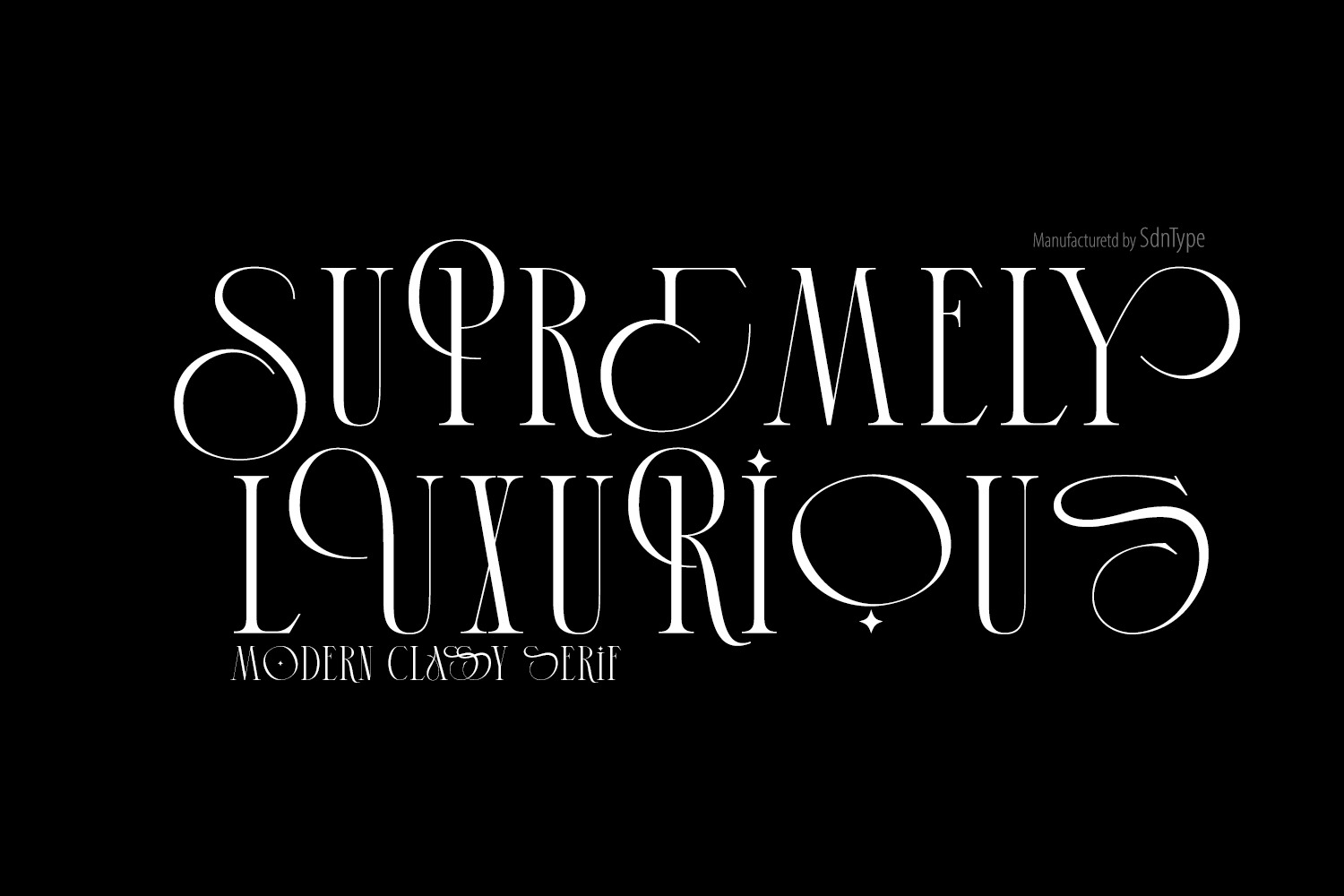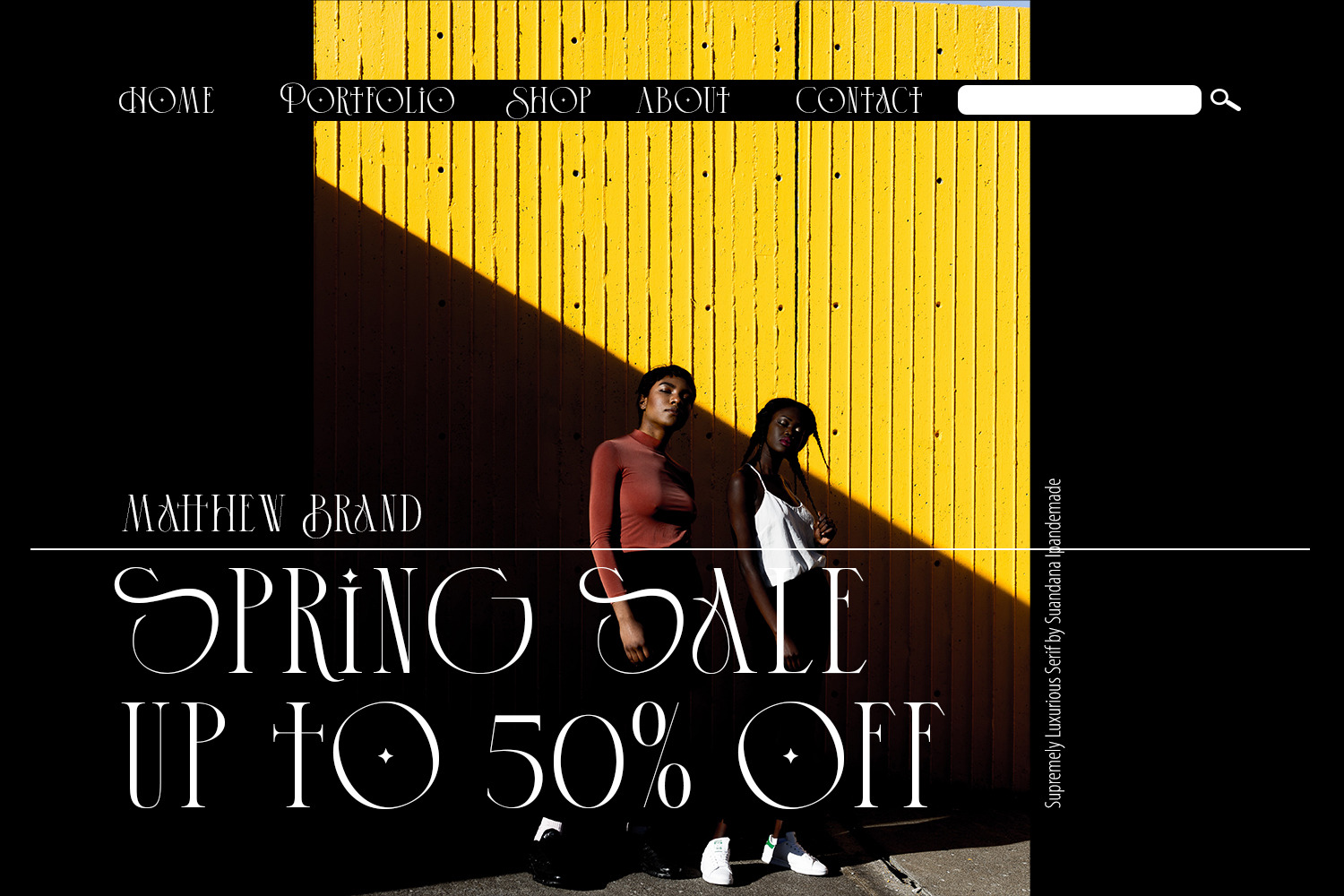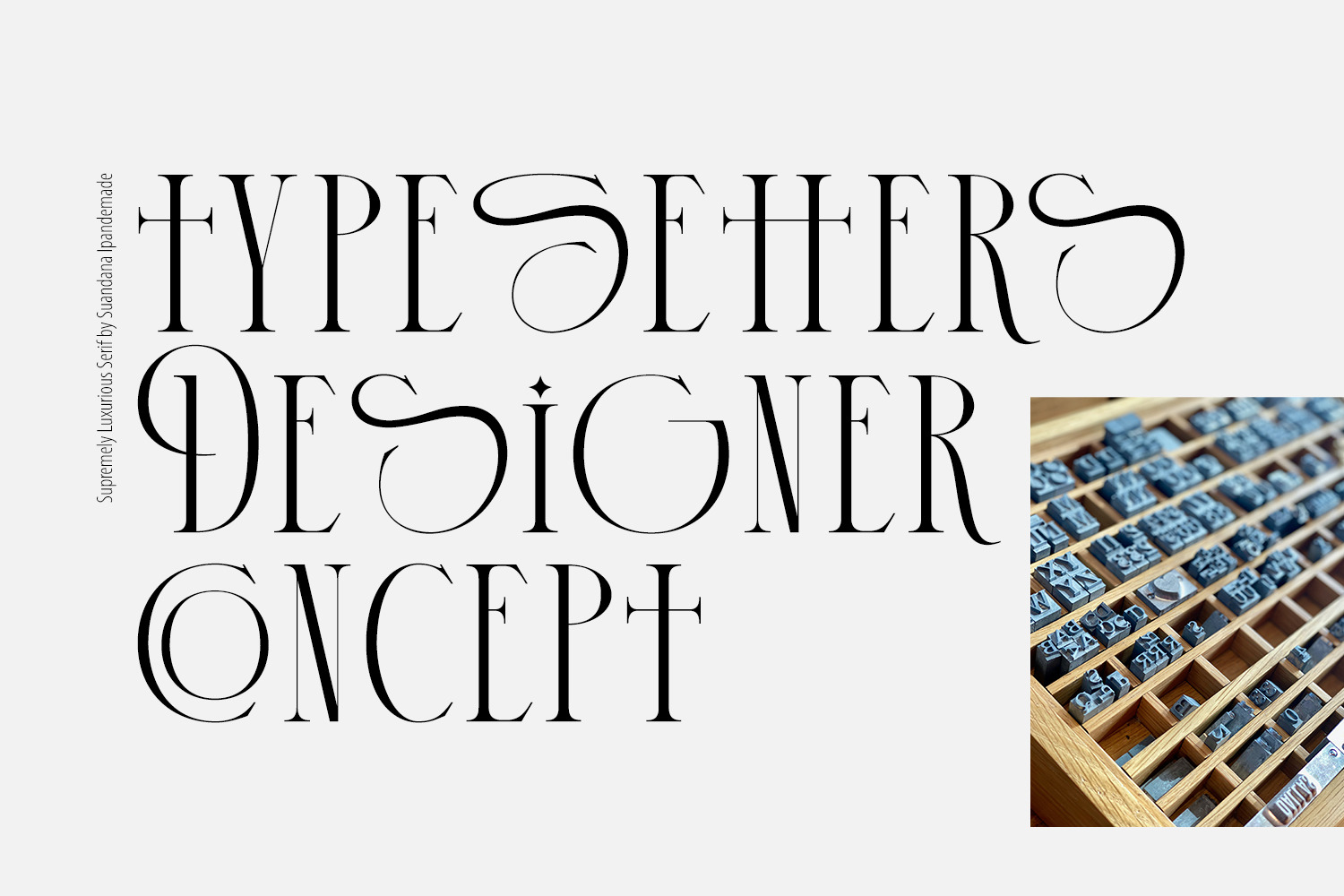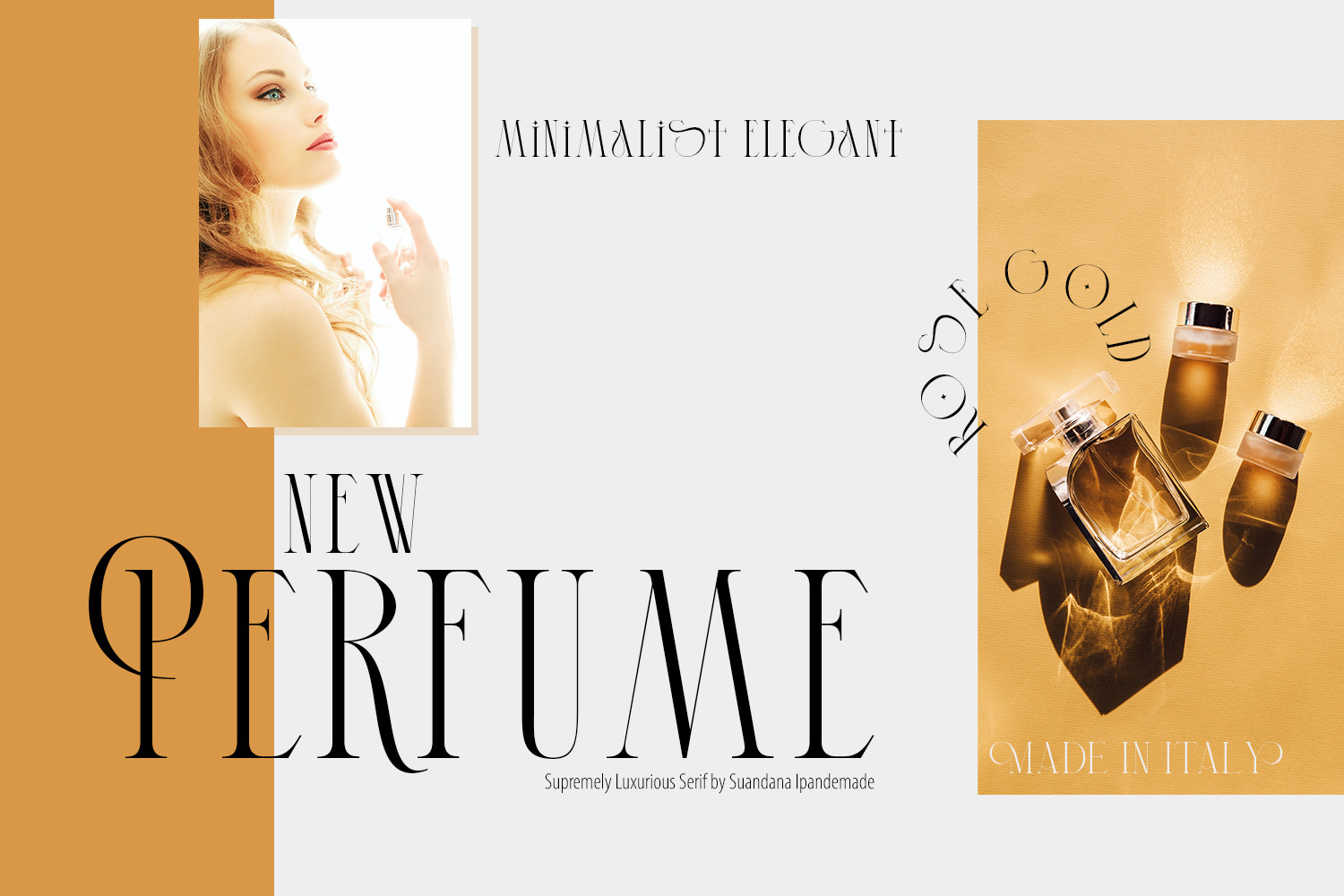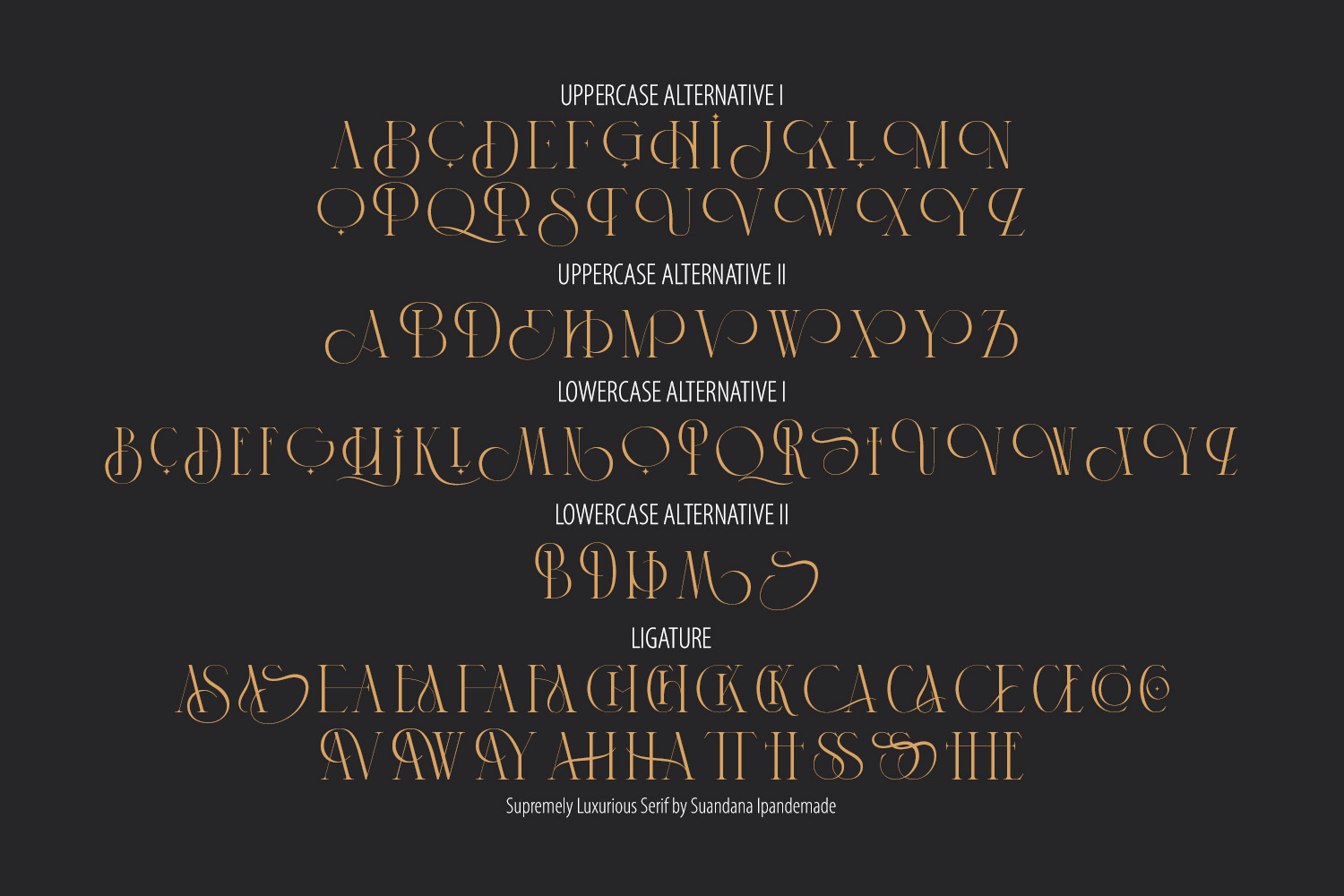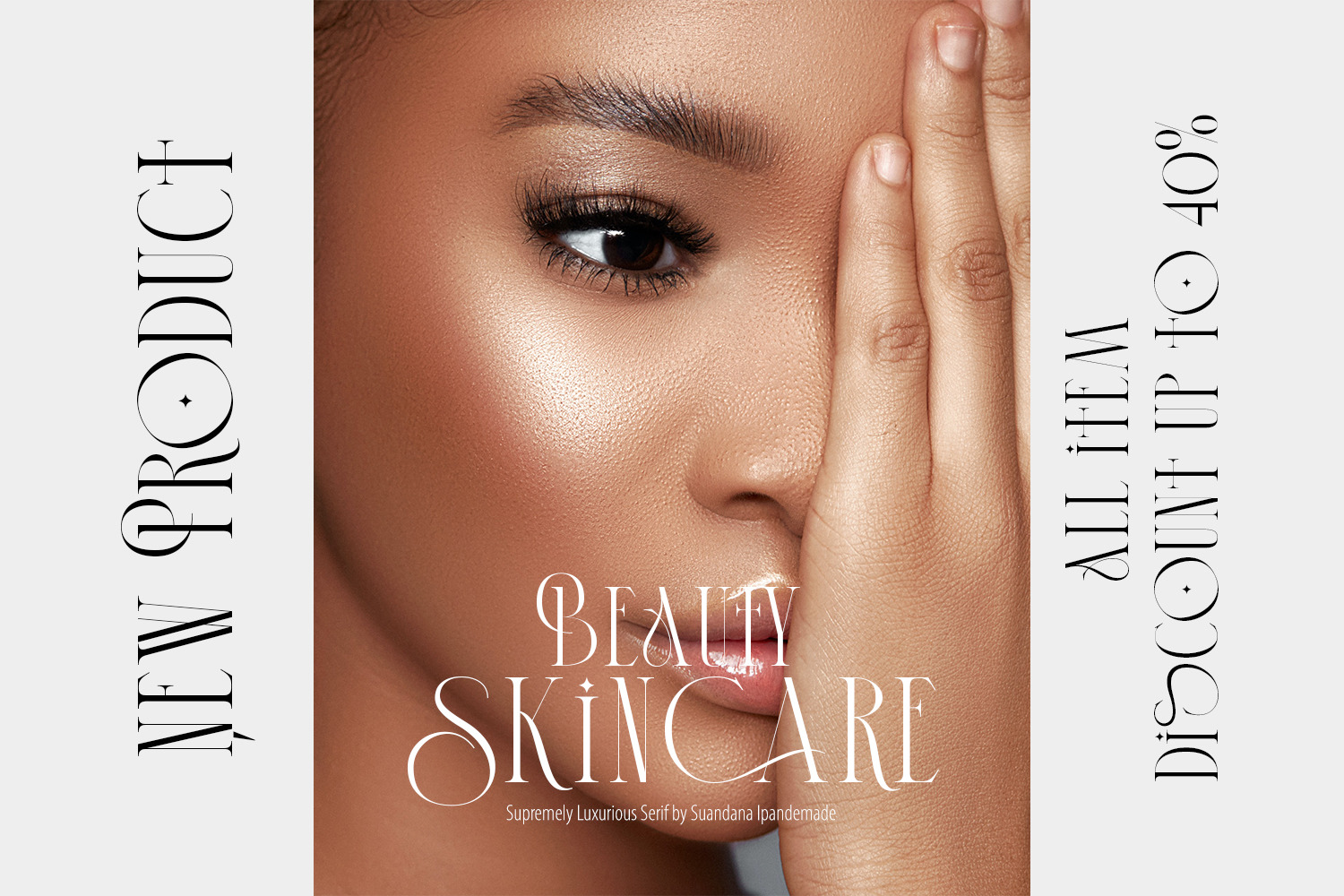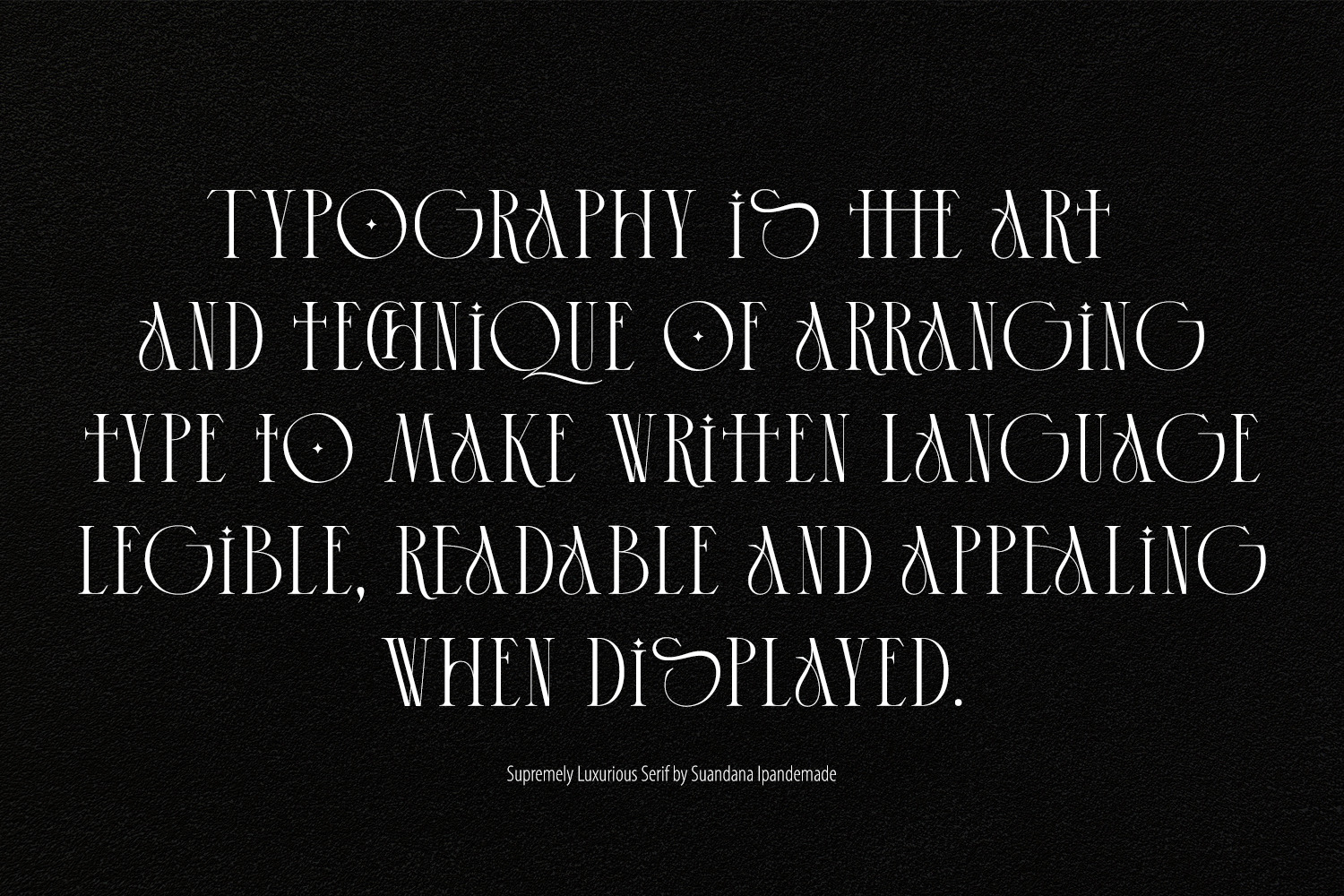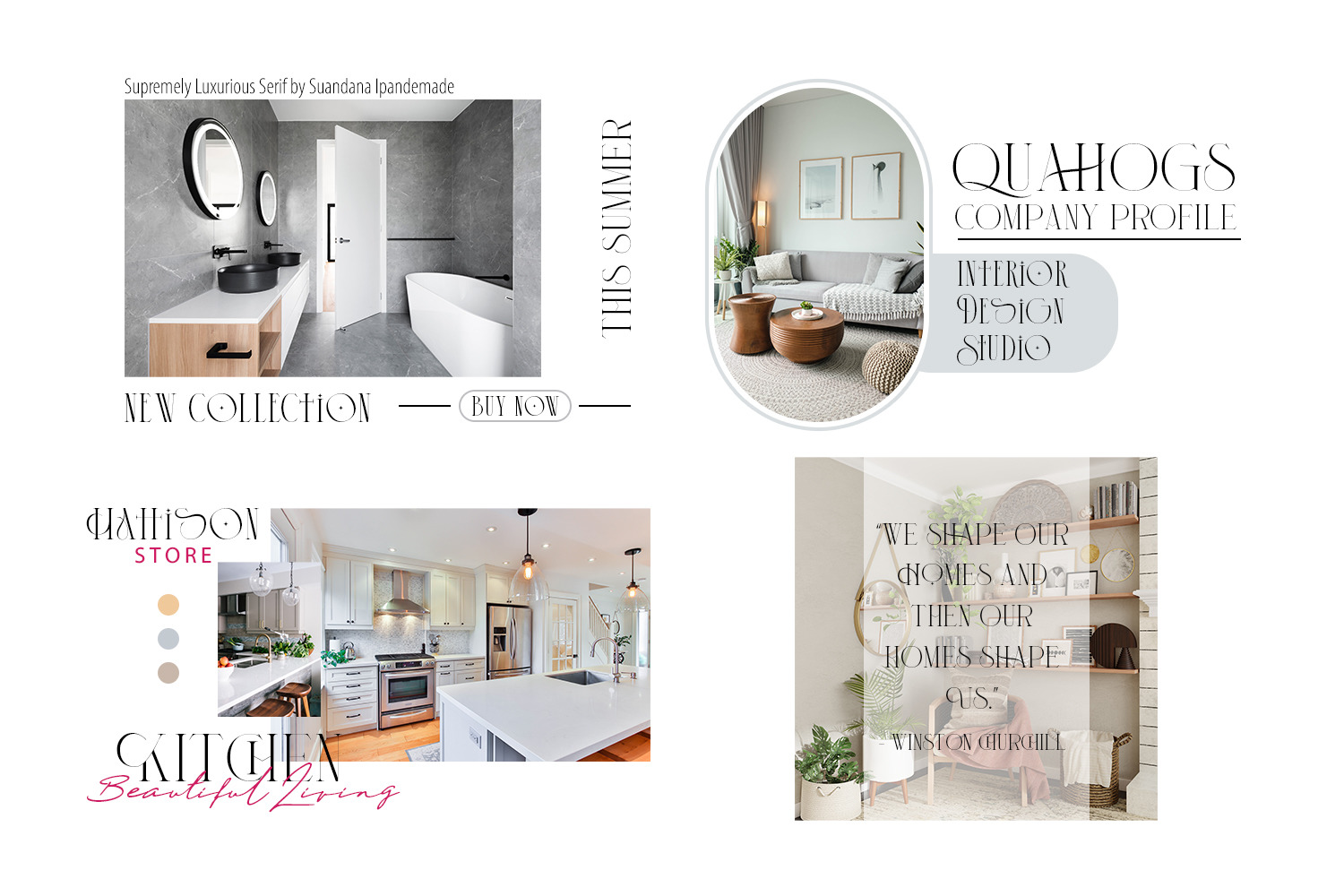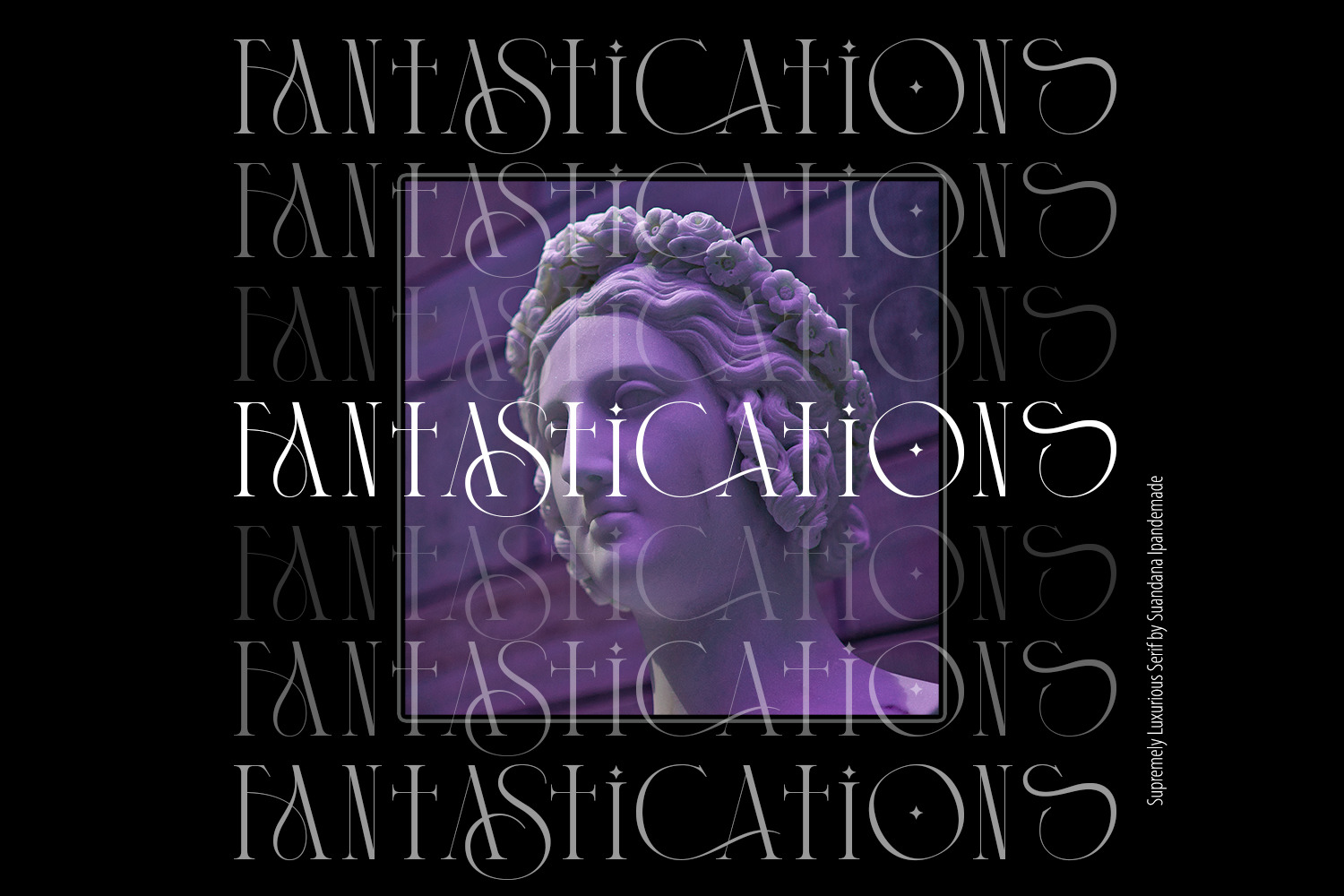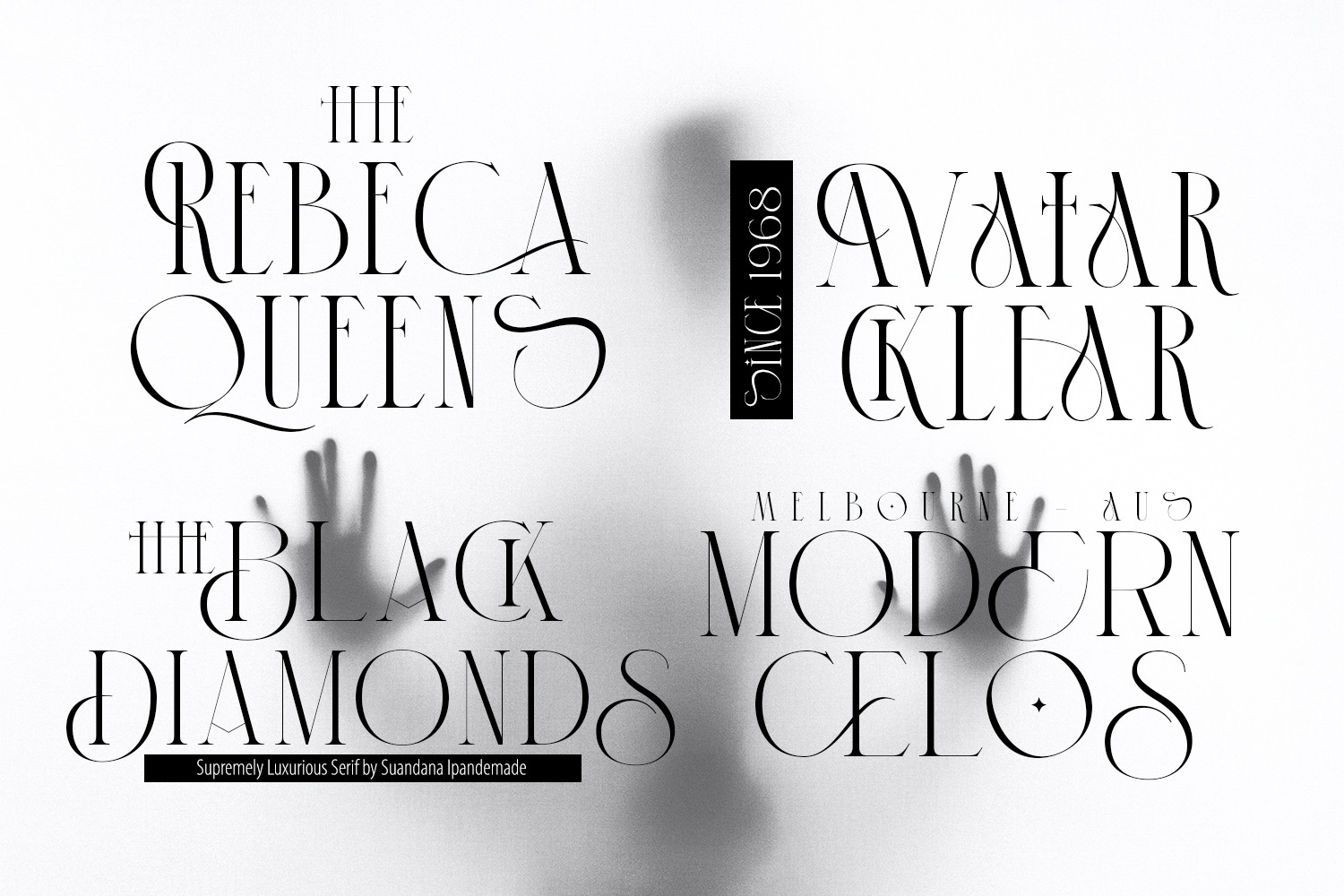
Supremely Luxurious Typeface
Introducing Supremely Luxurious, use this font for any branding, product packaging, invitation, quotes, t-shirt, label, poster, logo etc.
Feature
- Number & Symbol
- International Glyphs
- Alternative
- Ligature